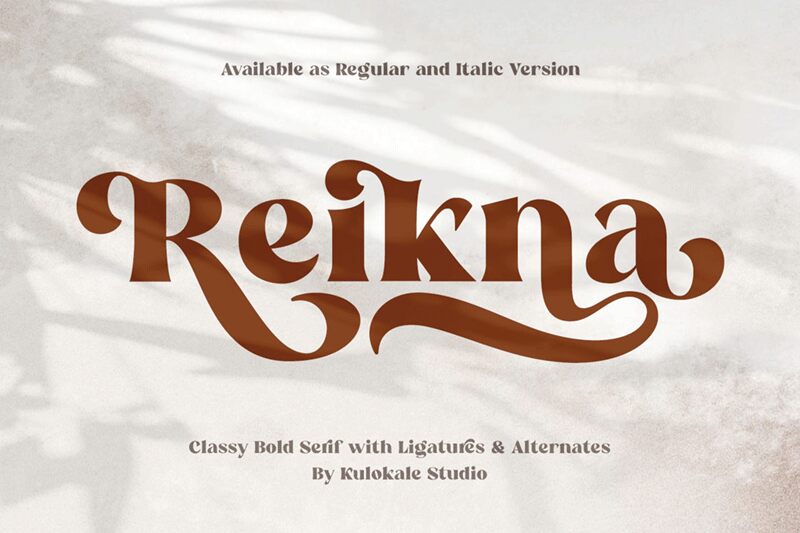
Reikna is an extra-bold serif font designed by M Arif Dwi Prasetyo & Eko Nurcahyo. Its semi-expanded width makes it perfect for creating eye-catching headlines, logos, and branding materials that demand attention. With its clean lines and bold strokes, Reikna exudes confidence and authority, making it an excellent choice for business websites and advertising campaigns. Additionally, Reikna's classic serif style lends itself well to projects that require a touch of elegance and sophistication, such as wedding invitations or high-end fashion magazines. Let Reikna elevate your design game with its bold presence and timeless appeal.
Reikna-Regular — Schriftpräsentation